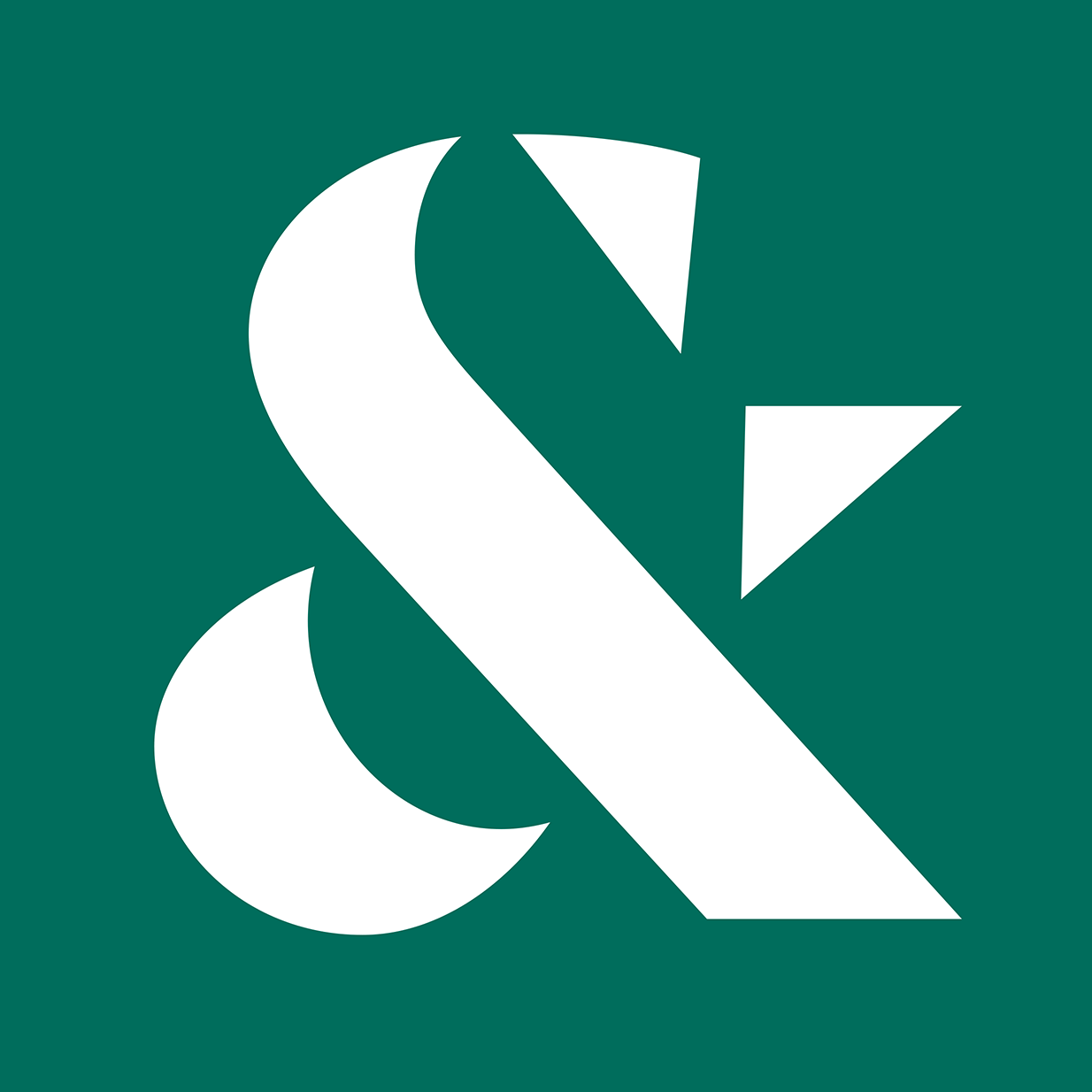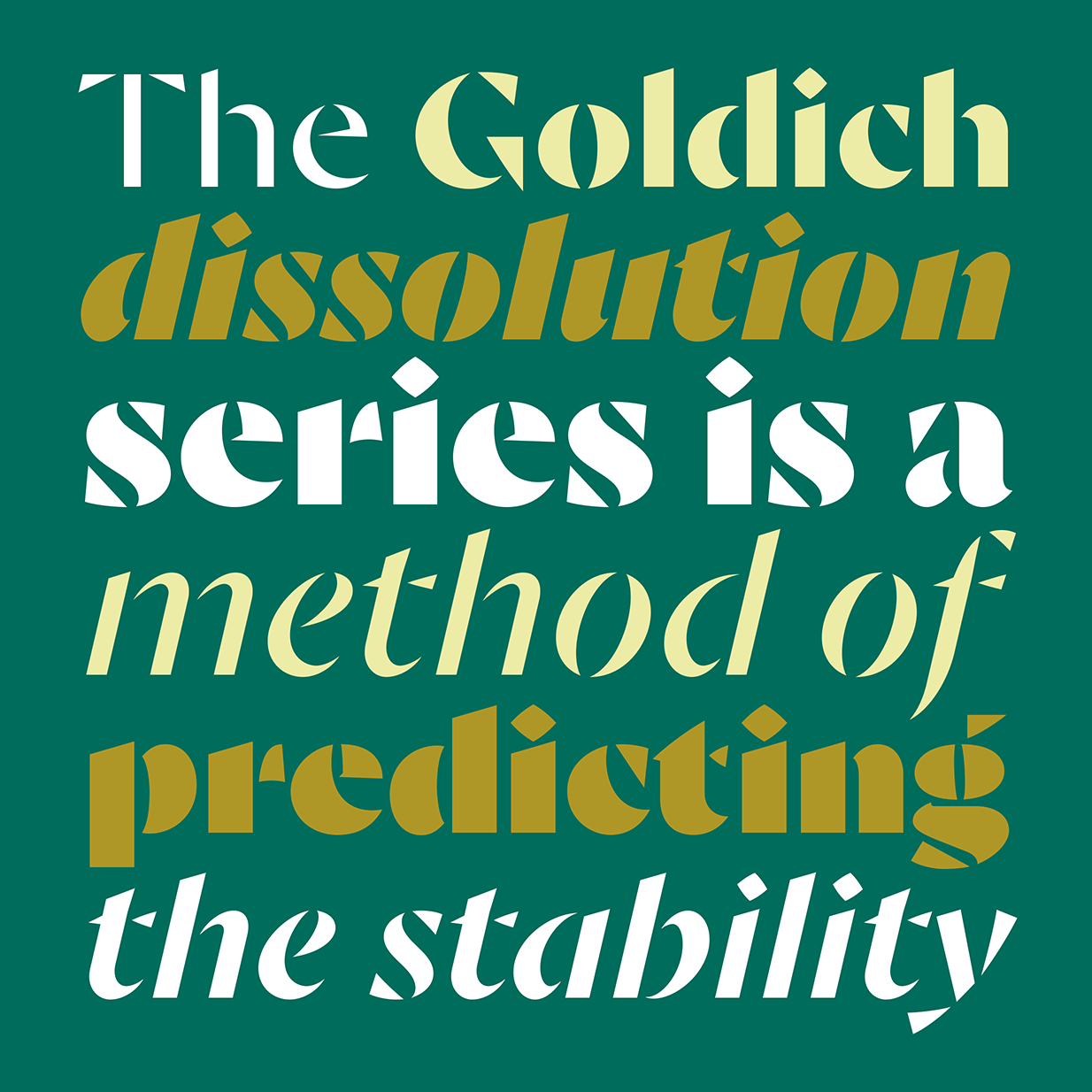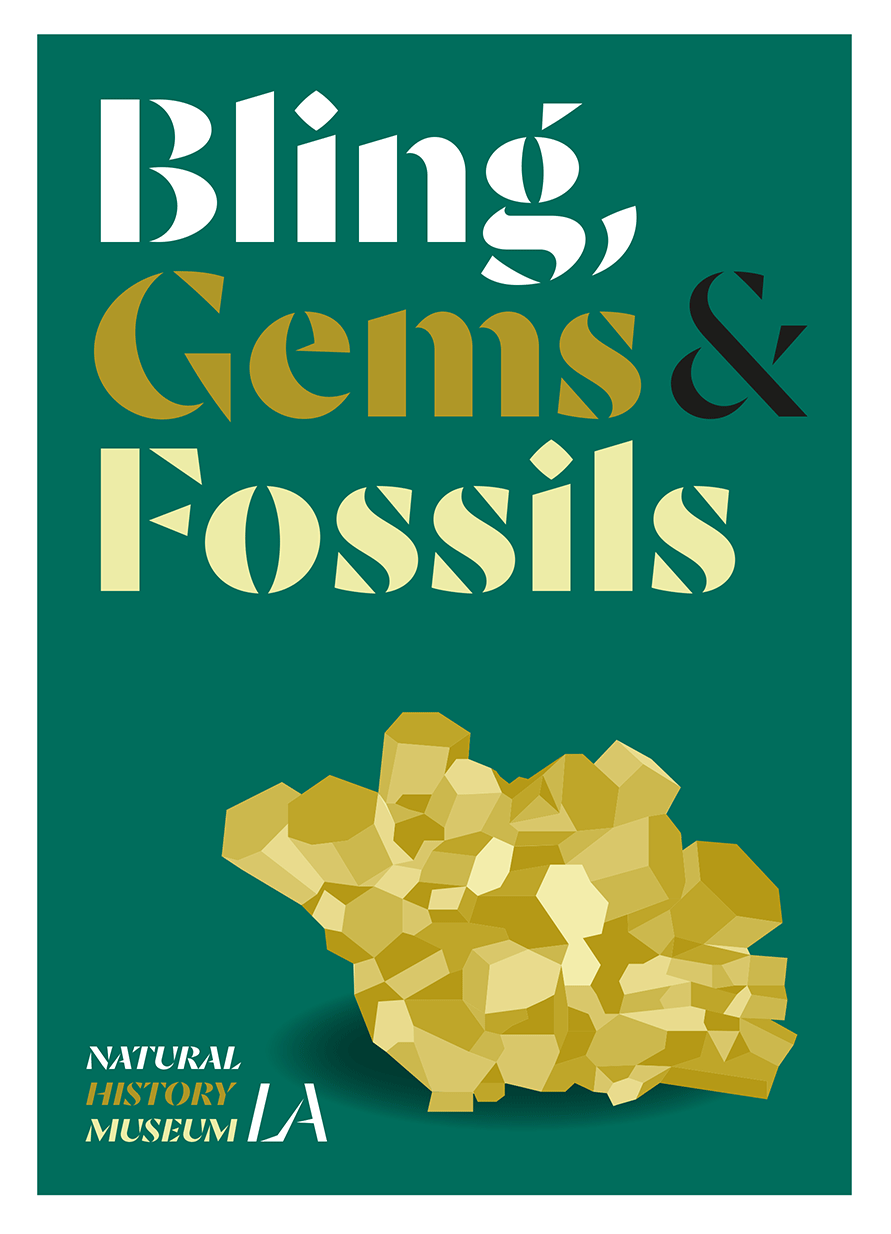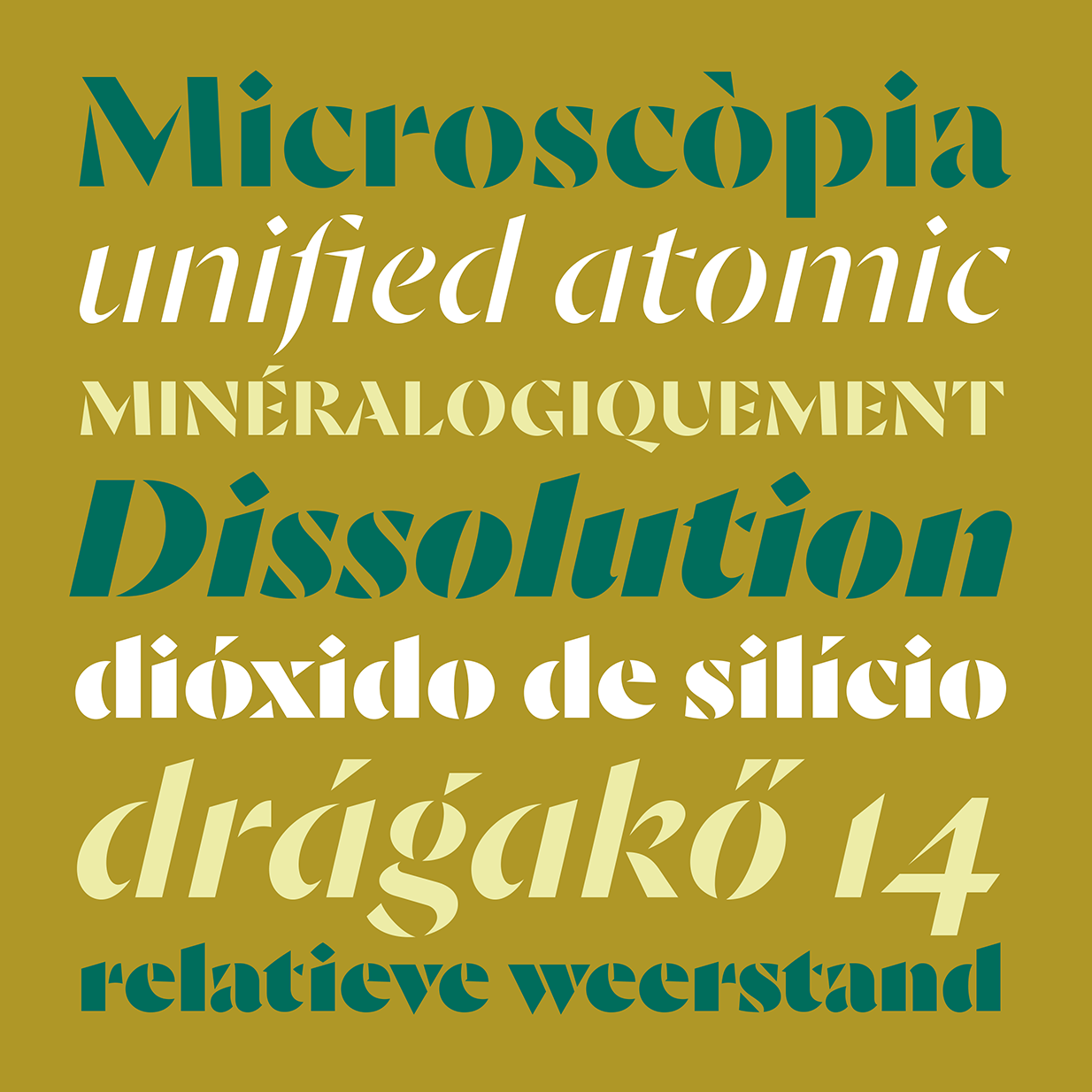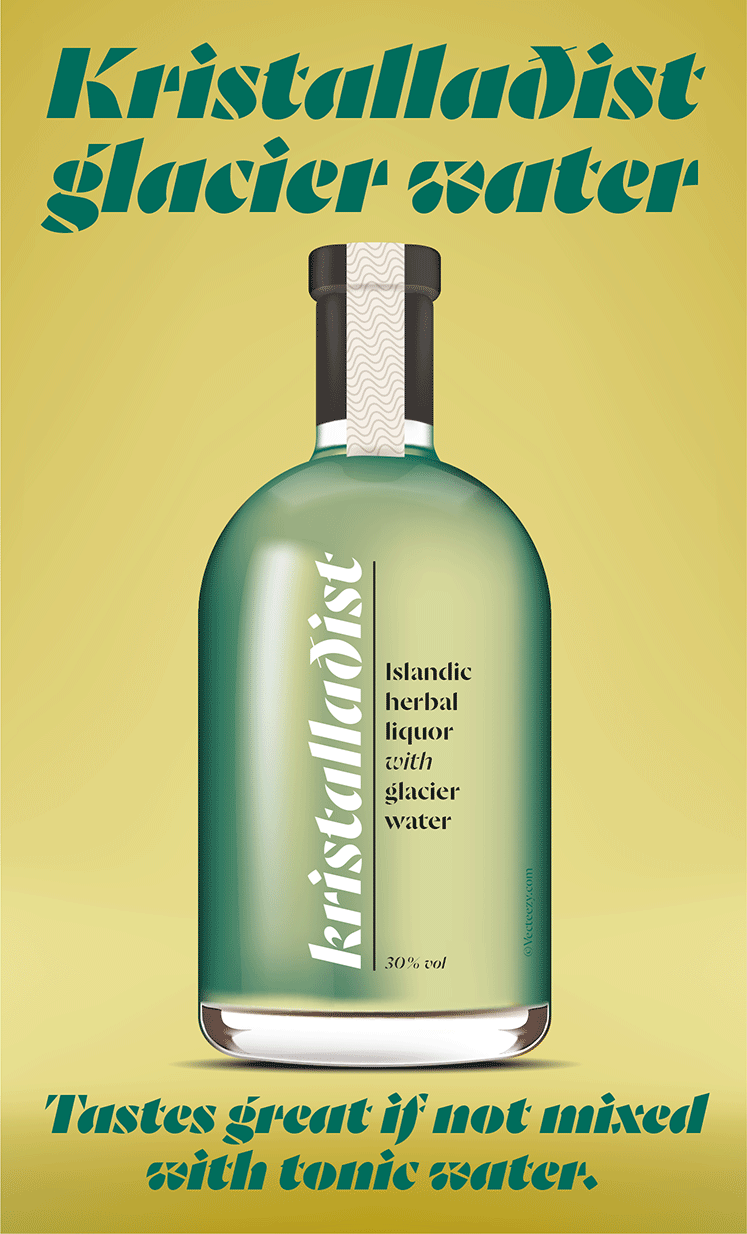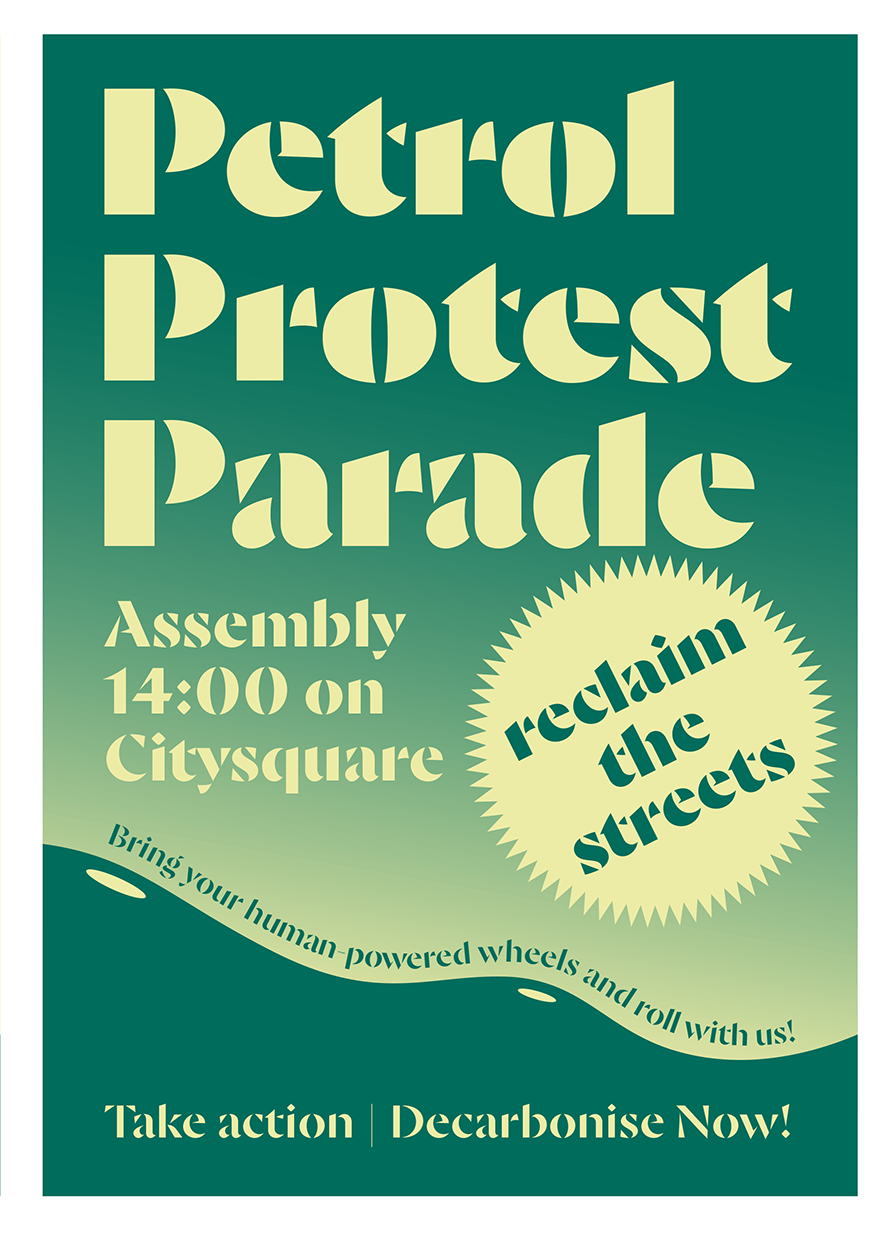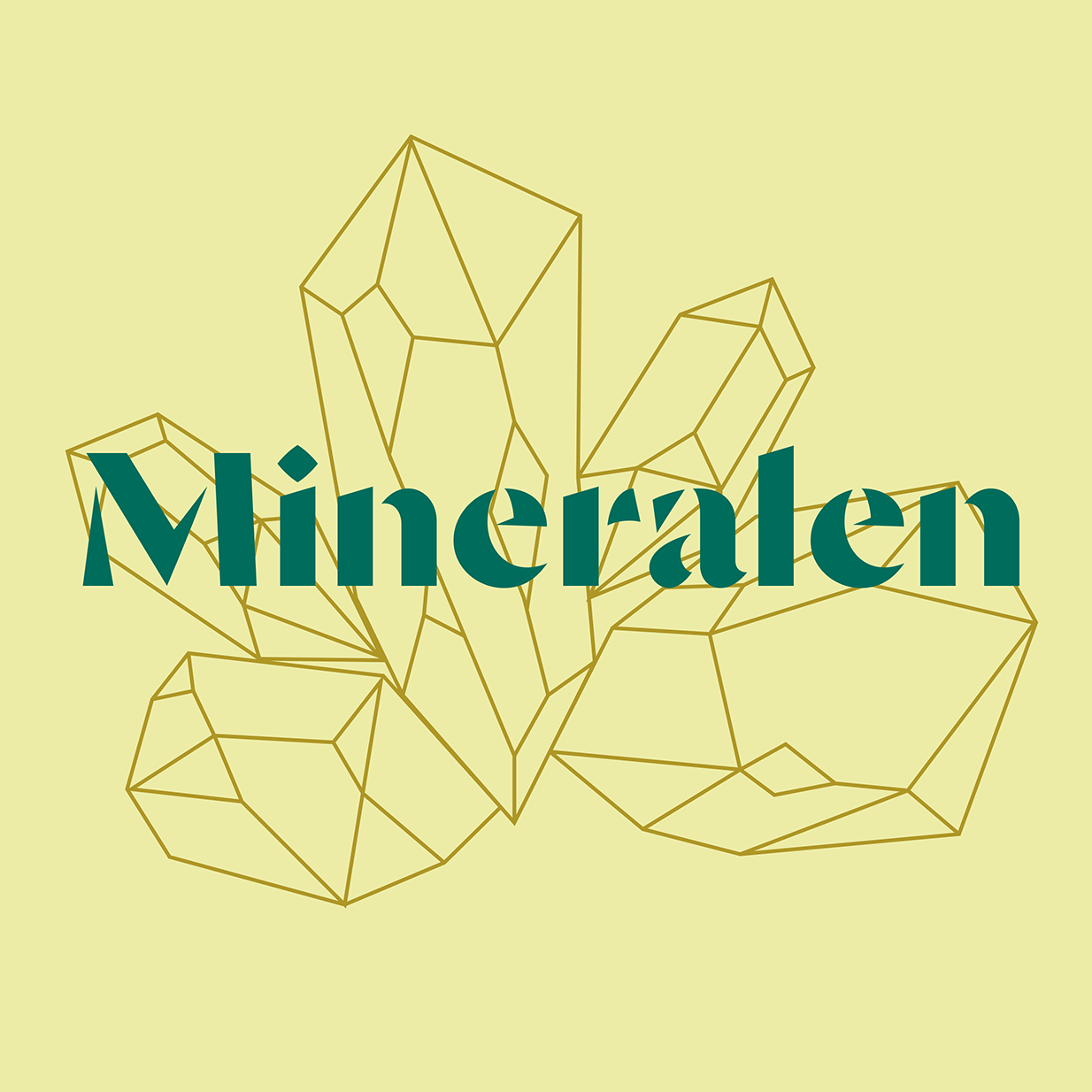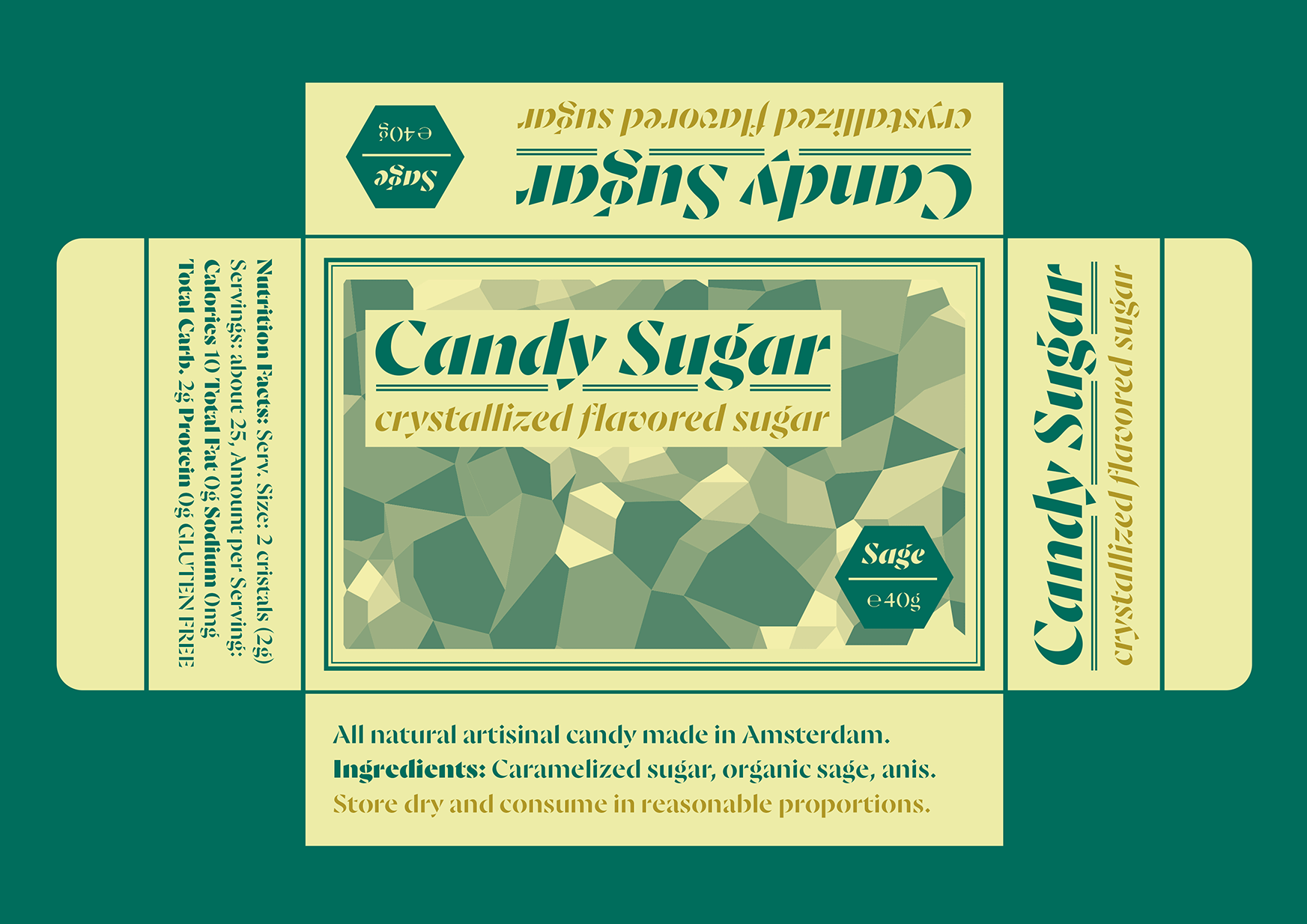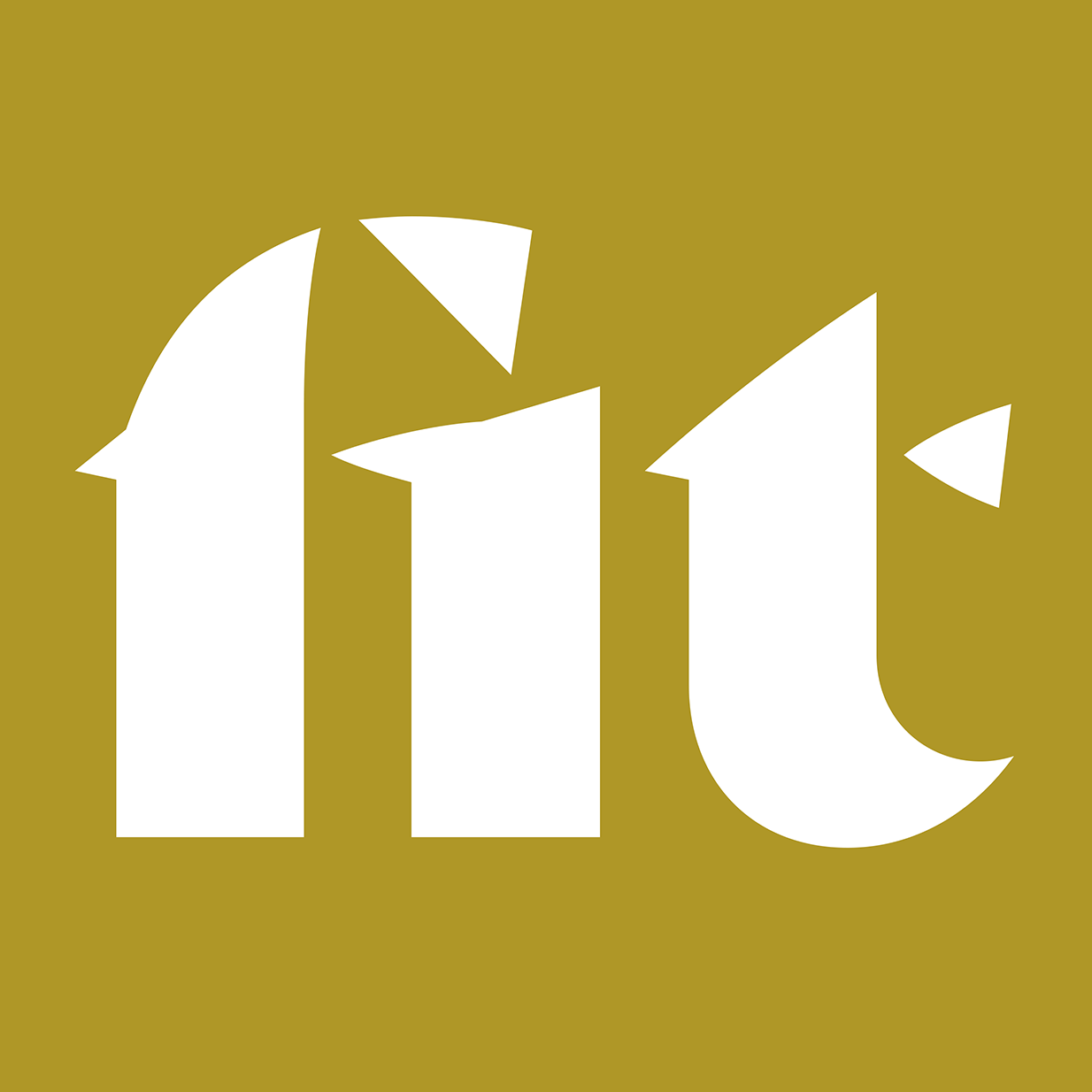
Goldich
The Goldich series – in science – is a method of predicting the weathering rate of minerals on the Earth’s surface. In 1938, Samuel Goldich found that the minerals that are first to crystallize are also the first to undergo weathering.
The Goldich series – in type – is a typeface family with letterforms that have crystallised into sharply cut shapes. Over a period of several years, Jasper de Waard created this series of five weights plus italics. Thin parts of characters weather away to different degrees and form stencil letters that want to shine in large sizes. The angular display quality of Goldich is especially apparent in all-caps settings. Smaller mixed case paragraphs – and especially the italics – add an elegant sparkle to all texts.
However, the distinct and decorative qualities of Goldich do not mean that it isn’t a feature-rich family. Covering over 100 languages, the fonts come complete with OpenType features for refined typography such as alternate forms for a, g, &, case-sensitive punctuation, and a large variety of numerals, fractions and ligatures.
Use it in your next identity or advertising project, or for signage and stencilling fun.
Goldich has received a Type Directors Club Certificate of Typographic Excellence in 2022.
Jasper de Waard